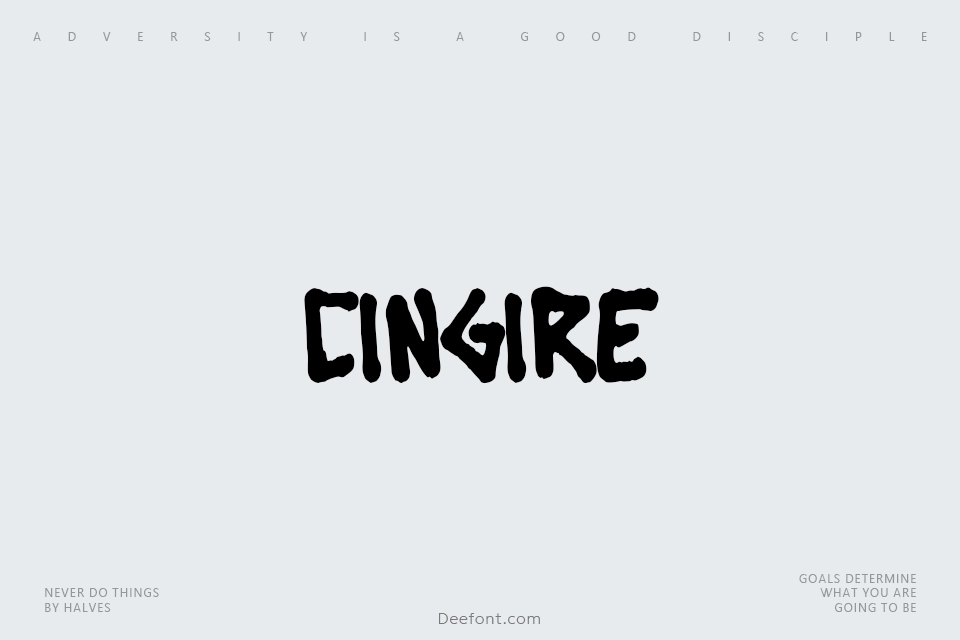
Cingire Font
Cingire Font is a bold, hand-drawn scary display typeface featuring a playful yet mysterious horror aesthetic. Designed for creative projects, this fancy font excels at creating impactful headlines, Halloween-themed designs, and decorative graphics. With its striking character shapes and expressive quality, Cingire brings personality to traditional media and web design, making it ideal for posters, branding elements, and eye-catching visual communications. Perfect for designers and crafters seeking a unique, atmospheric typeface that combines modern creativity with a distinctive scary charm.